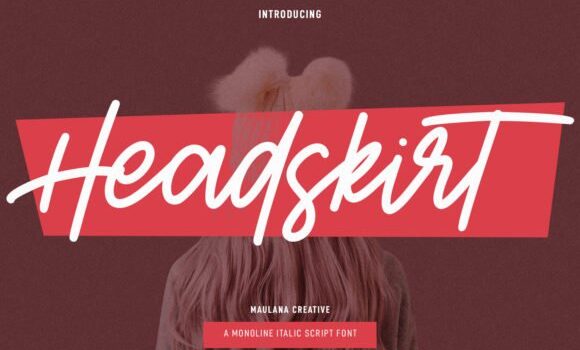
headskirt
Headskirt Font – Free Download Introduction to Headskirt Font Headskirt is a relaxed, casual and vintage styled script font. 📸 Preview Gallery 6 images 📌 Product Name Headskirt Font 👤 Author Maulana Creative 📂 Category Explore ⬇️ Download Headskirt Font